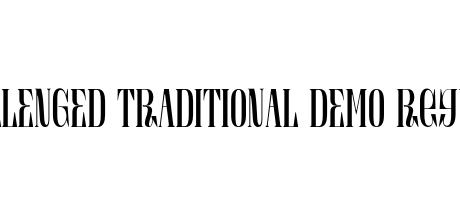
CHALLENGED TRADITIONAL DEMO Regular
CHALLENGED TRADITIONAL DEMO Regular: A font that boldly defies convention. Its classic serif structure is subtly disrupted, creating a tension between tradition and modernity. The result is a unique typeface, both elegant and rebellious, perfect for projects seeking a sophisticated edge.